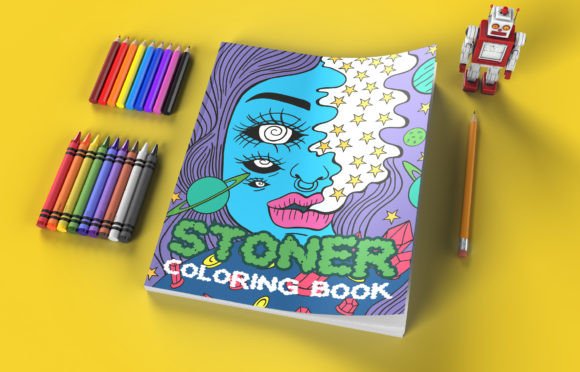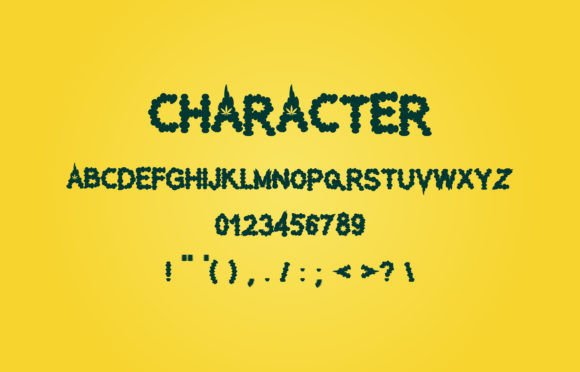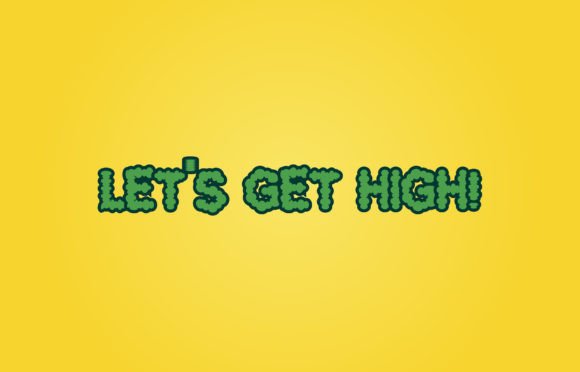
Cannabis Font: Add a Trippy Touch to Your Designs
Are you looking for a unique and eye-catching font to elevate your designs? Look no further than the Cannabis Font, a decorative font featuring cannabis leaves that’s perfect for trippy-themed designs, weed coloring book covers, or anything that needs a fun accent. In this article, we’ll explore the world of Cannabis Font, its features, and how you can use it to take your designs to the next level.
What is Cannabis Font?
Cannabis Font is a decorative font that incorporates cannabis leaves into its design. This cool font is perfect for designers and crafters who want to add a touch of whimsy and fun to their projects. The font features intricate cannabis leaves that are woven together to create a unique and eye-catching design.
Features of Cannabis Font
Cannabis Font has several features that make it a great addition to any design project. Some of its key features include:
- Unique Design: The font features a unique design that incorporates cannabis leaves, making it perfect for trippy-themed designs.
- Decorative: The font is highly decorative, making it perfect for designs that need a fun accent.
- Versatile: The font can be used for a variety of design projects, including weed coloring book covers, posters, and more.
How to Use Cannabis Font
Cannabis Font is easy to use and can be incorporated into a variety of design projects. Here are some ideas for using Cannabis Font:
- Weed Coloring Book Covers: Add a fun and eye-catching touch to your weed coloring book covers with Cannabis Font.
- Trippy-Themed Designs: Use Cannabis Font to create trippy-themed designs that are perfect for posters, flyers, and more.
- Crafting Projects: Use Cannabis Font to add a fun touch to your crafting projects, such as handmade cards and gift tags.
Benefits of Using Cannabis Font
There are several benefits to using Cannabis Font in your design projects. Some of the benefits include:
- Instant Recognition: The font’s unique design featuring cannabis leaves provides instant recognition and can help your designs stand out.
- Fun and Whimsical: The font adds a fun and whimsical touch to your designs, making them perfect for projects that need a playful vibe.
- Easy to Use: The font is easy to use and can be incorporated into a variety of design projects.
Tips for Using Cannabis Font
Here are some tips for using Cannabis Font in your design projects:
- Use it Sparingly: Use Cannabis Font sparingly to avoid overwhelming your design. A little goes a long way, and using the font too much can make your design look cluttered.
- Pair it with Other Fonts: Pair Cannabis Font with other fonts to create a unique and eye-catching design. A bold font paired with Cannabis Font can create a striking contrast.
- Experiment with Colors: Experiment with different colors to find the perfect combination for your design. Cannabis Font looks great in bright, bold colors.
Cannabis Font is a unique and eye-catching font that’s perfect for designers and crafters who want to add a touch of whimsy and fun to their projects. With its intricate cannabis leaves and decorative design, Cannabis Font is perfect for trippy-themed designs, weed coloring book covers, or anything that needs a fun accent. By following the tips outlined in this article, you can use Cannabis Font to take your designs to the next level and create eye-catching projects that are sure to turn heads.